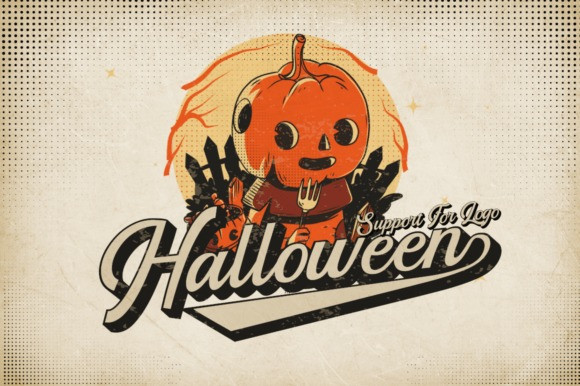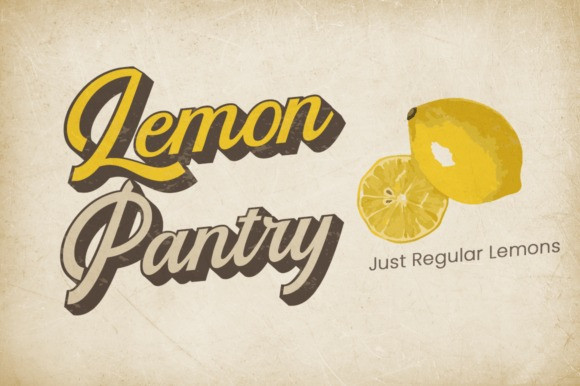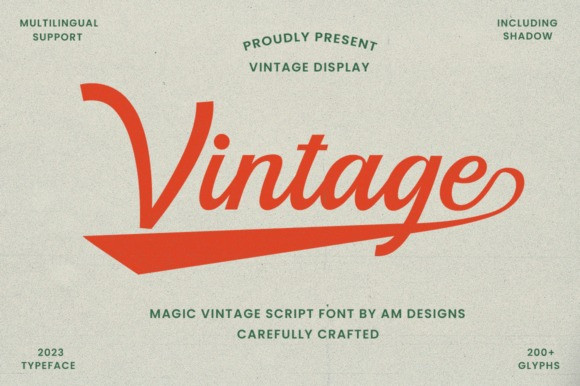
Magic Vintage Font
Magic Vintage Font is a retro vintage font inspired by retro typefaces and lettering of the 70s and 80s typography style.
This font is perfect for vintage and retro designs, badges, logos, t-shirts, posters, branding, packaging, signage, book covers and more! This font is PUA coded, which means you can easily access all the glyphs and swashes!